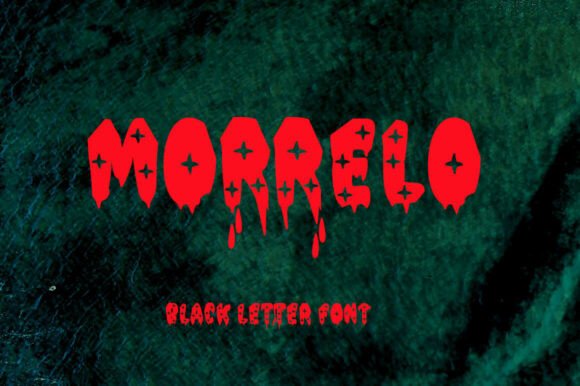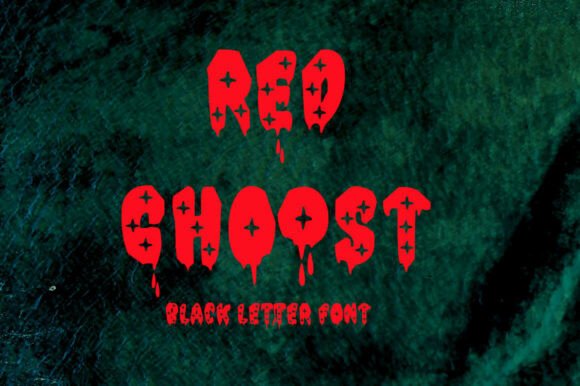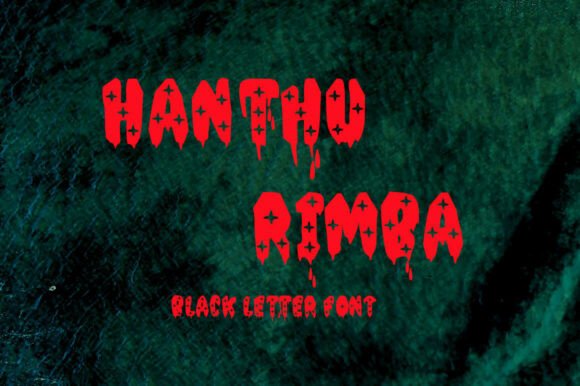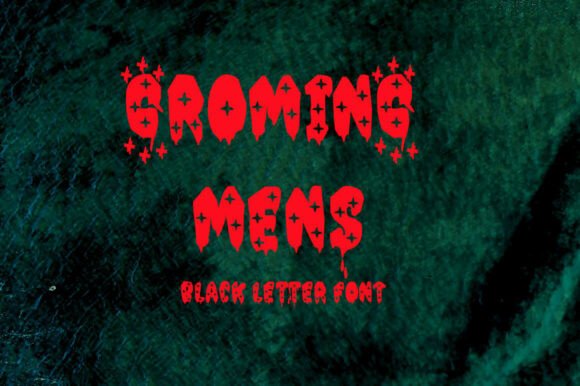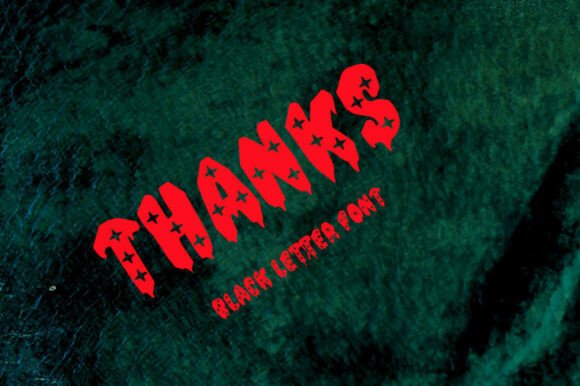
Introduction to Snackey Font
Snackey is an incredibly unique display font.
Snackey Font offers exceptional quality and versatility, making it a valuable addition to your design toolkit. Whether you’re creating for personal projects or commercial use, Snackey Font delivers professional results.